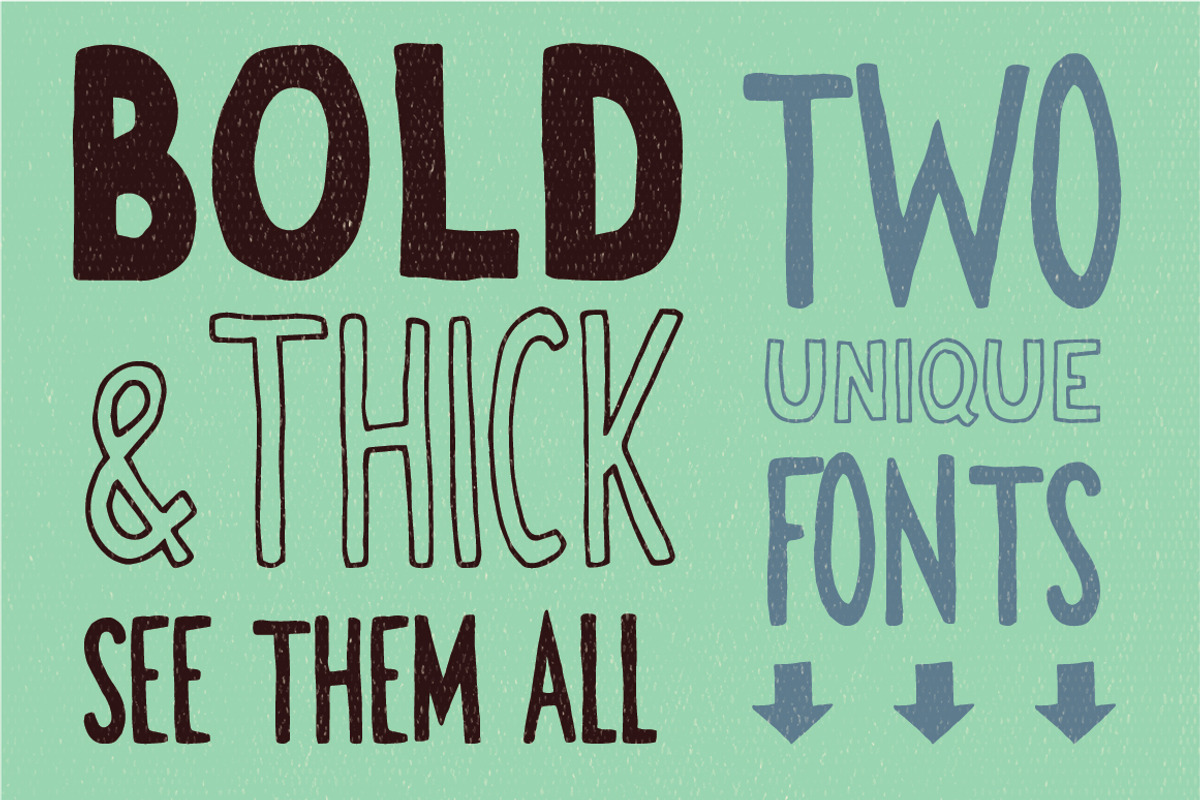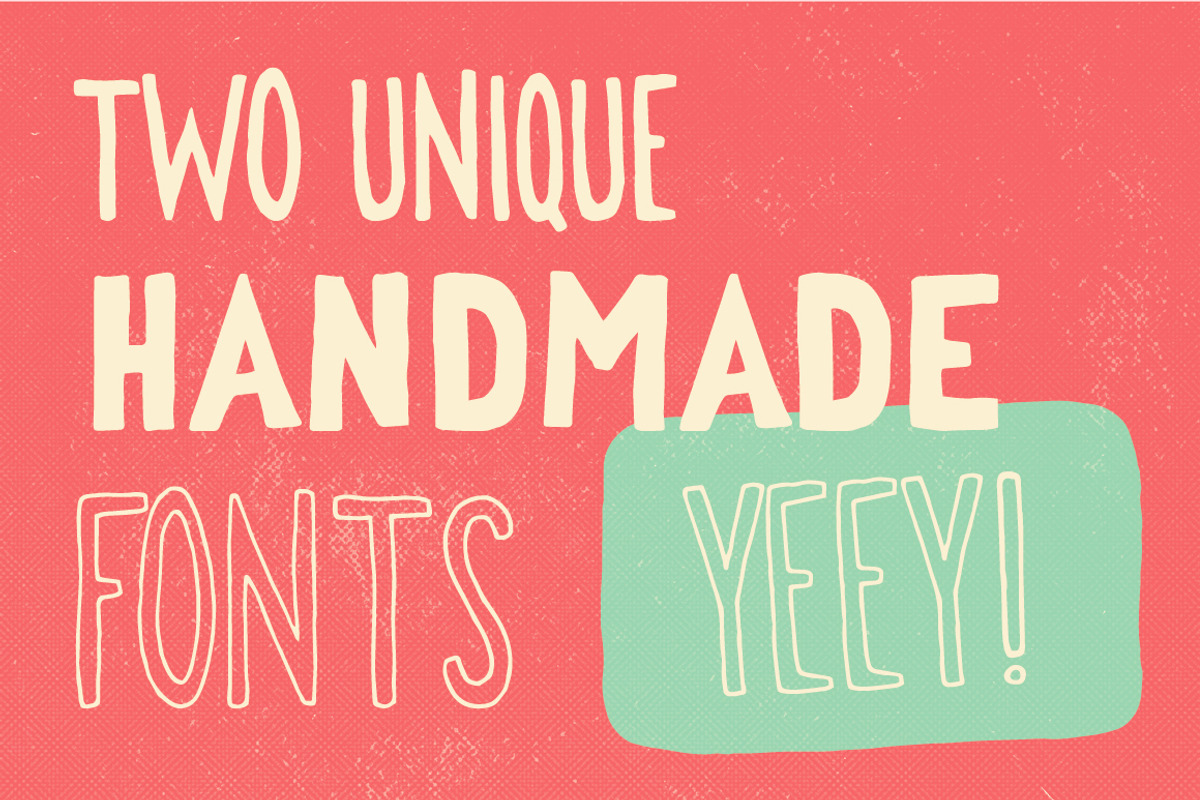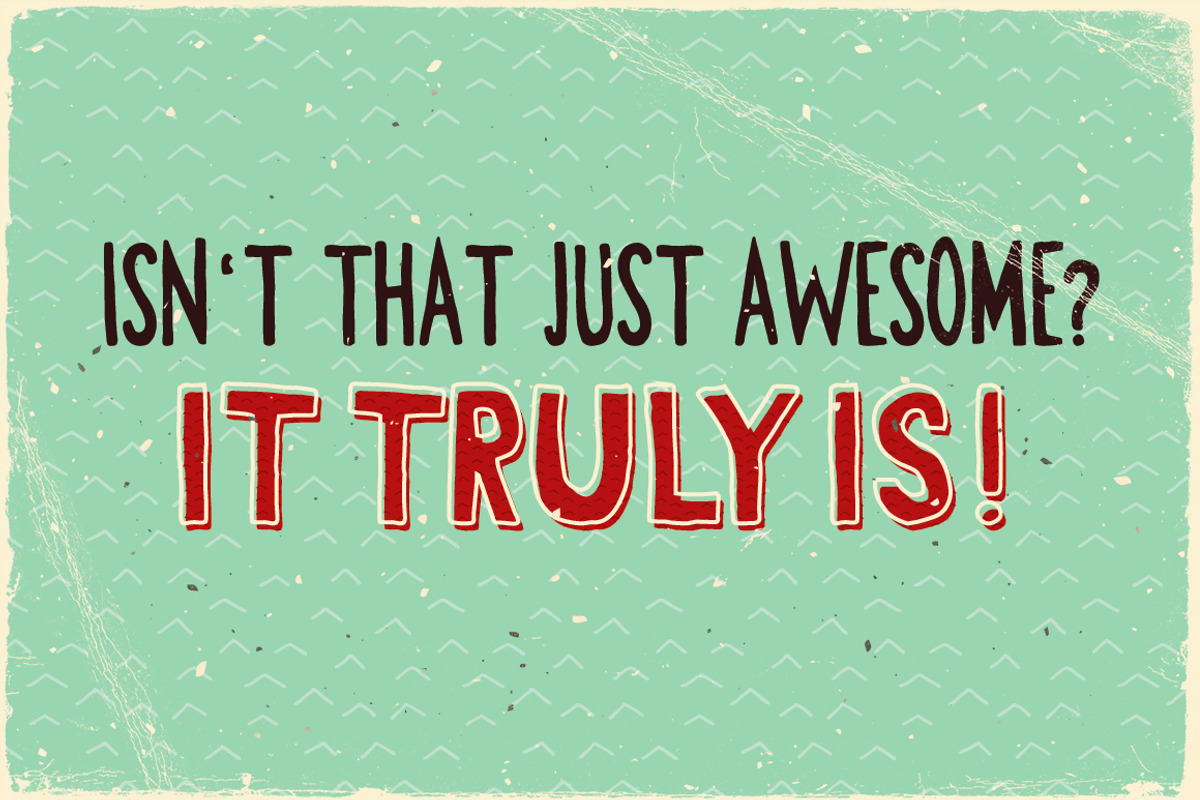
George & Francis Font Pack + bonus
George & Francis Font Pack + bonus by Vitek Graphic is a font selected for branding, posters, packaging, typography.
- Lowercase, Uppercase and all basic English characters included!
- Included in this set: OpenType font George - Bold & Outline variation.
- Francis Regular
- Francis Bold
- George Regular
- George Bold
George & Francis Font Pack + bonus by Vitek Graphic fits naturally into Branding, posters, packaging, typography.